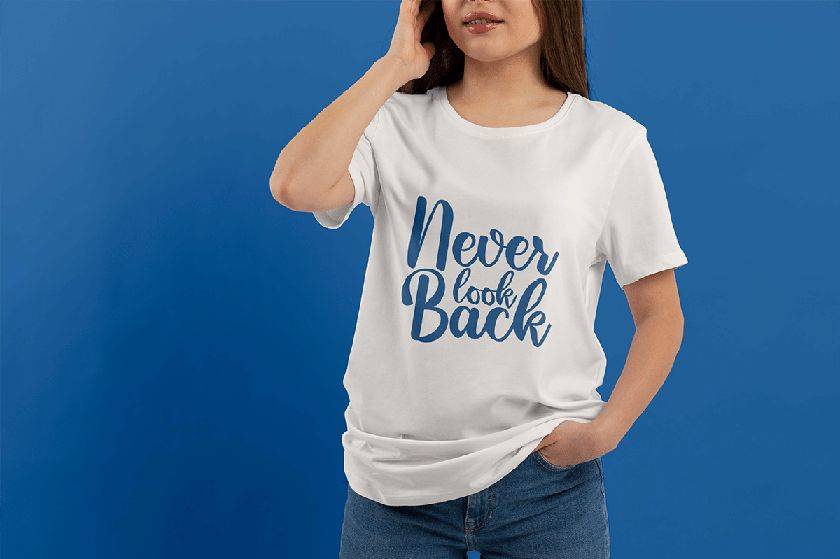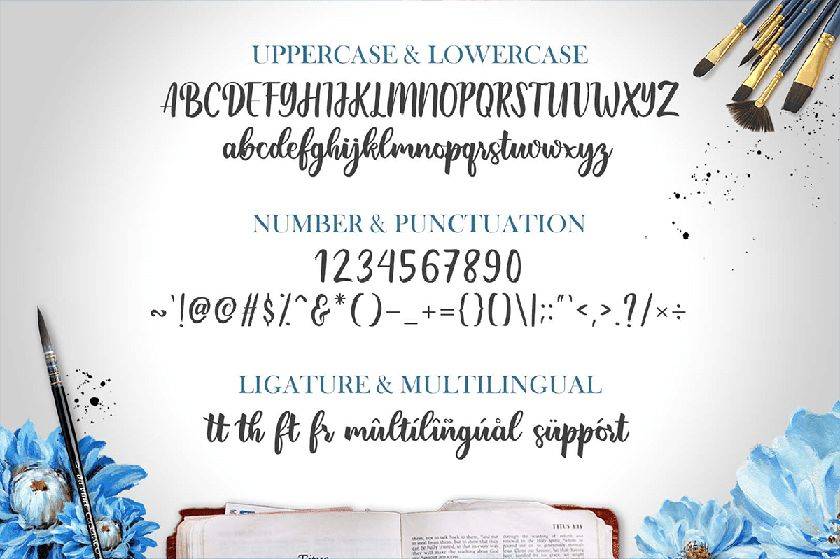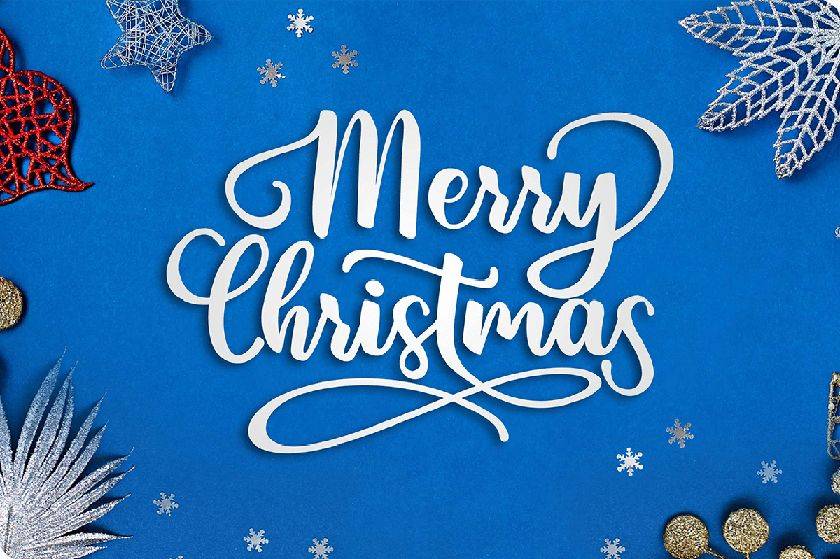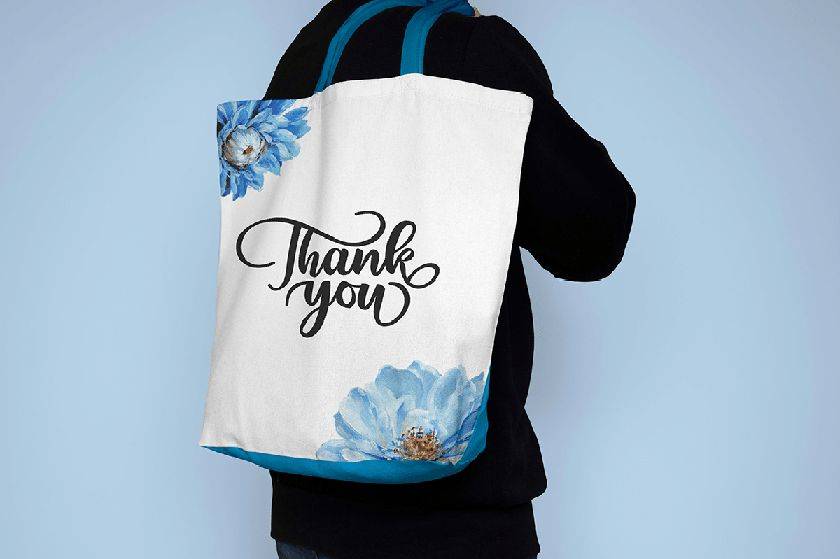
Brightly is a playful and charming script font with smooth, rounded strokes and a lively, handwritten feel. Its medium weight and moderate contrast make it friendly and approachable, perfect for adding a personal touch to branding, invitations, and casual editorial designs. The font’s flowing letterforms and balanced spacing make it well-suited for headlines and logos that want to convey warmth and creativity.
Brightly Font
About Brightly Font
| Font family | Brightly Font |
| Designer | Irawan Fuzha |